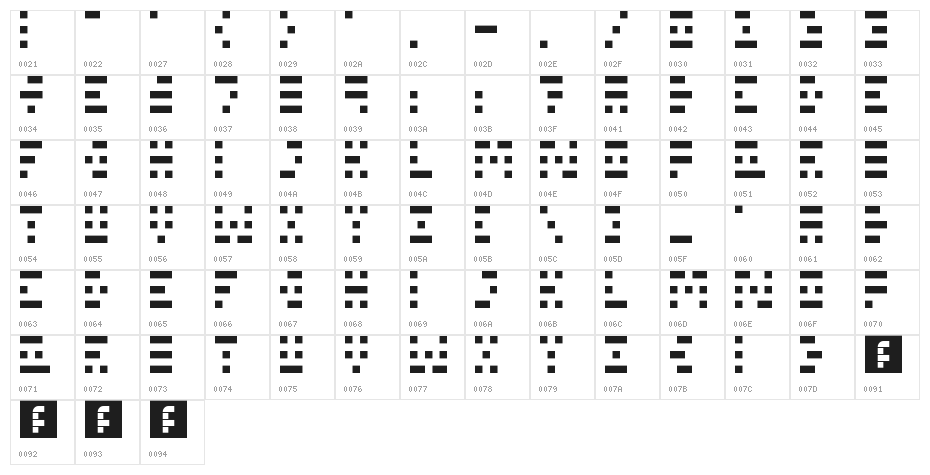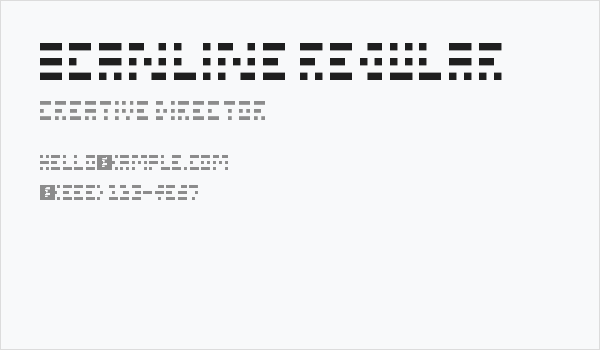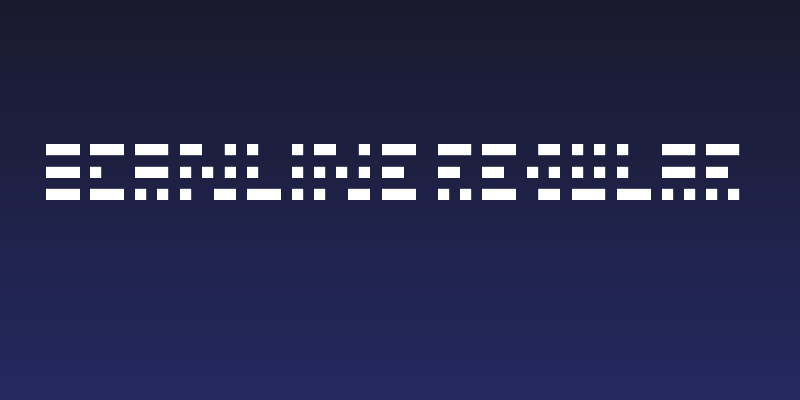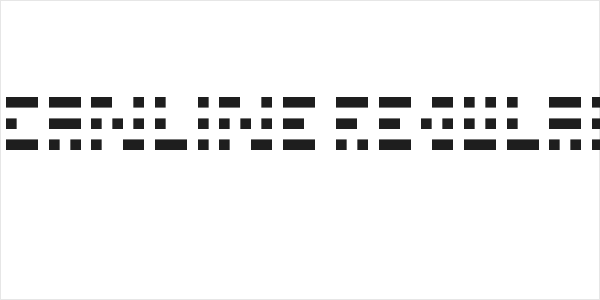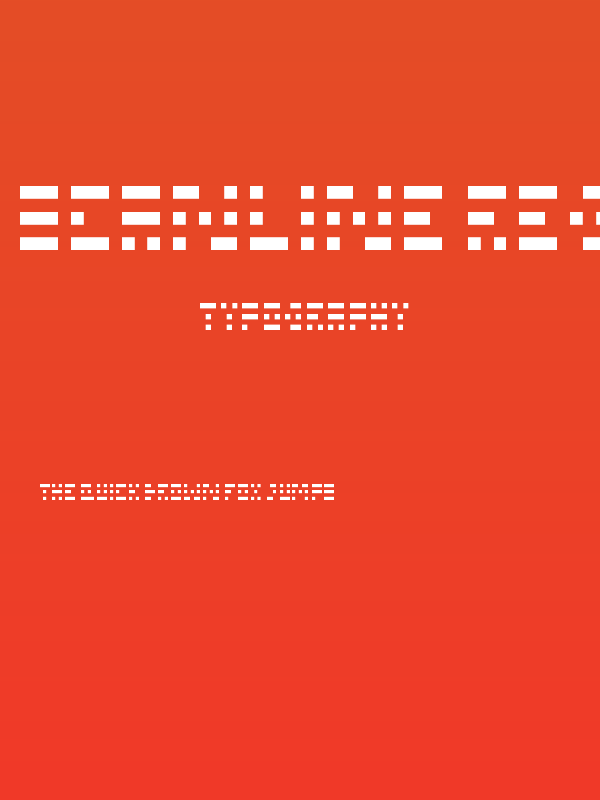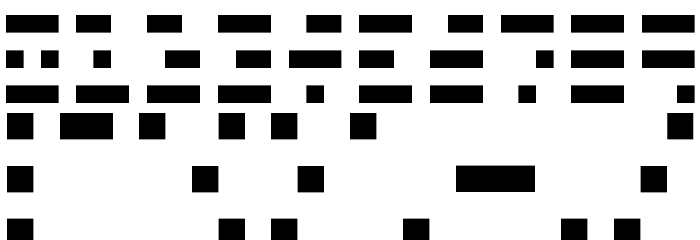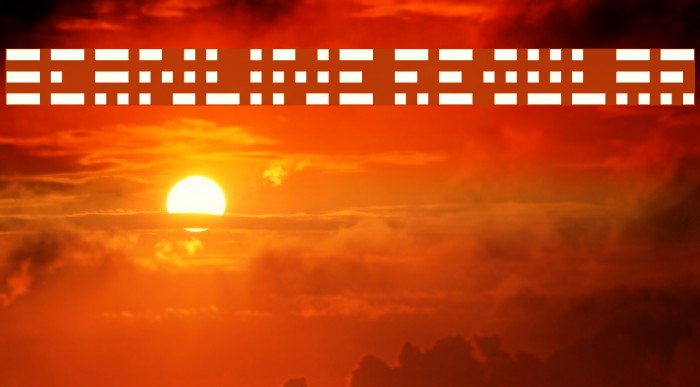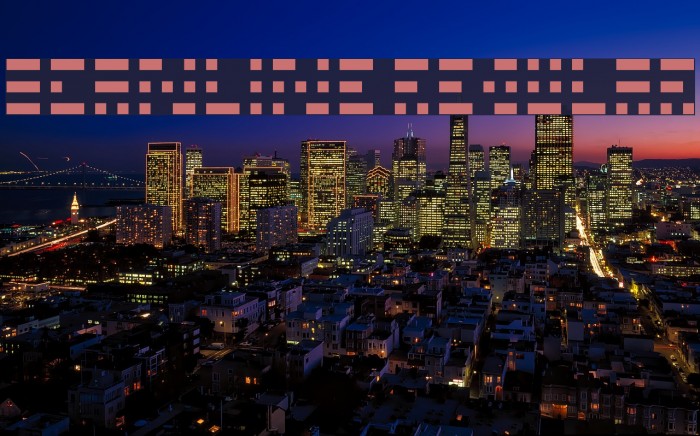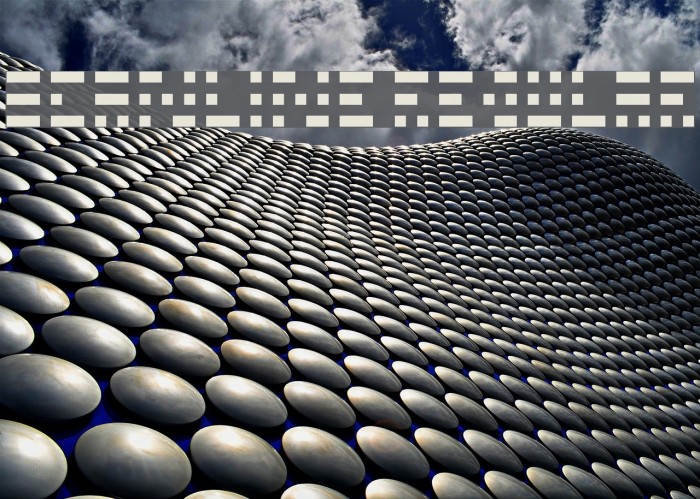
Scanline Regular Font
Scanline Regular Description
This font features a unique, pixelated design reminiscent of retro computer screens and early digital displays. Each character is composed of horizontal lines and blocks, creating a distinct, futuristic appearance. The uppercase and lowercase letters maintain a consistent style, with a uniform height and width that enhances readability. Numbers and special characters follow the same design principles, ensuring a cohesive look across all text elements. The font's bold and geometric nature makes it stand out, ideal for projects that require a digital or tech-inspired aesthetic.
| Overall Style | Futuristic, Retro |
| Use Case | Headlines, Logos, Digital Displays |
| Proposed Projects | Ideal for video game design, tech-themed posters, digital art projects, and retro-style branding. |